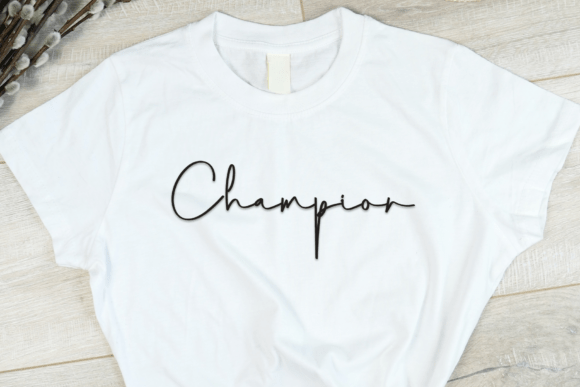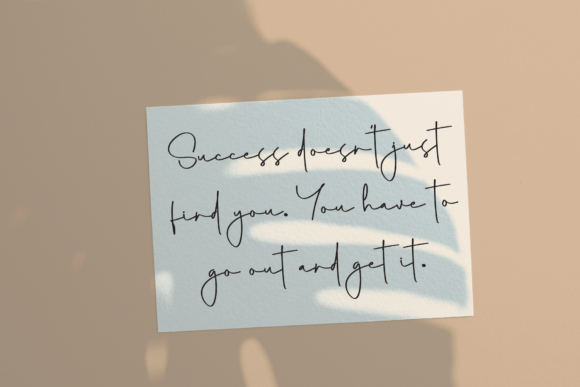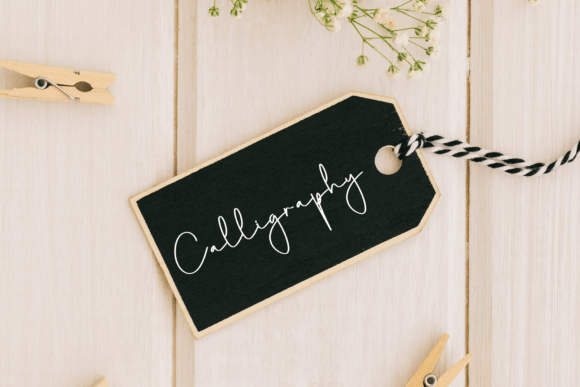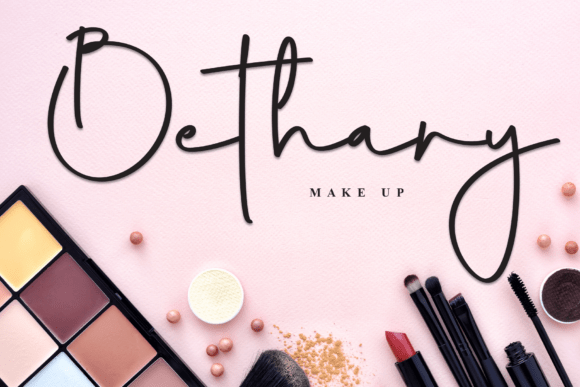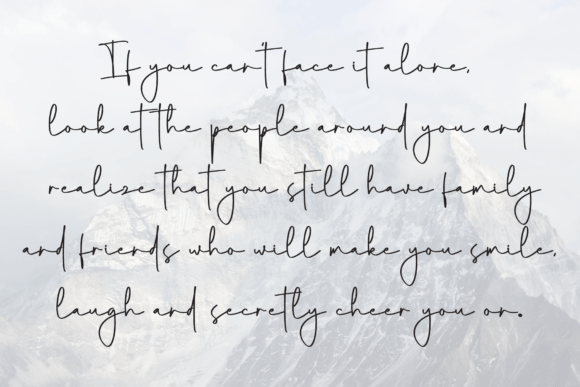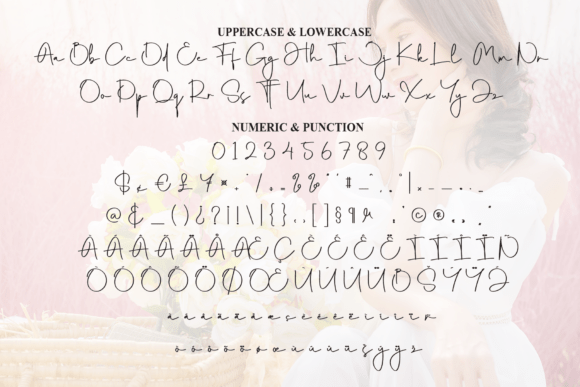
Unleashing the Magic of Beautiful Charming Font
As designers, we’ve all had those moments when we’re brainstorming a new project and the perfect font just seems to elude us. The blank page stares back, taunting us with its emptiness, until suddenly – a spark of inspiration strikes. You envision a beautiful, handwritten script font that exudes elegance and modern flair, perfectly capturing the essence of your brand or message. This is exactly what Beautiful Charming Font is all about.
This stylish typeface is designed to bring warmth and sophistication to any project, making it ideal for branding, invitations, and social media. With its flowing strokes and organic curves, Beautiful Charming Font adds a personal, refined touch with effortless charm. For designers, it’s a valuable asset that can elevate any design and set it apart from the crowd.
Key Features of Beautiful Charming Font
- Font Family: Beautiful Charming Font offers a range of 6 unique font styles, including regular, bold, italic, and bold italic.
- Unique Characteristics: This font features elegant, cursive script with subtle flourishes, making it perfect for creating visually appealing designs, invitations, and wedding stationery.
Designer Review: Beautiful Charming Font
I’ve had the chance to work with the “Beautiful Charming Font” and I must say it’s a mixed bag. On the one hand, there are some things that really shine ✨.
- Unique style: The font’s whimsical and elegant design makes it perfect for projects that need a touch of sophistication and charm.
- Legibility: Despite its ornate appearance, the font is surprisingly easy to read, making it suitable for body text as well as headings.
- Customization options: The font comes with a range of styles and weights, allowing designers to experiment with different looks and feels.
However, there are also some limitations ⚠️.
- Limited language support: The font only supports a limited range of languages, which may be a problem for projects that require multilingual support.
- File size: The font’s unique design makes it a bit larger than average, which can be a concern for projects with strict file size limitations.
- Compatibility issues: I’ve encountered some compatibility issues with certain software and operating systems, which can be frustrating.
Overall, I’d say the “Beautiful Charming Font” is a great choice for projects that need a touch of elegance and whimsy. While it may not be the most practical or versatile font, its unique style and customization options make it a great addition to any designer’s toolkit.
Beautiful Charming Font is ideal for:
1. Wedding invitations and stationery
2. Branding and marketing materials
3. Editorial and publishing projects
4. Social media graphics and posts
Remember to use Beautiful Charming Font consistently across your design to create a cohesive and charming visual identity.
Alternative Font Options
Playfair Display is an elegant and luxurious font perfect for high-end branding and packaging. It’s ideal for use in headlines and titles where a touch of sophistication is required.
Compared to Beautiful Charming Font, Playfair Display has a more refined and vintage feel, making it a better choice for luxury brands and upscale designs.
Pacifico is a beautiful and elegant script font ideal for use in invitations, wedding designs, and other creative projects. It’s perfect for adding a touch of romance and whimsy to your designs.